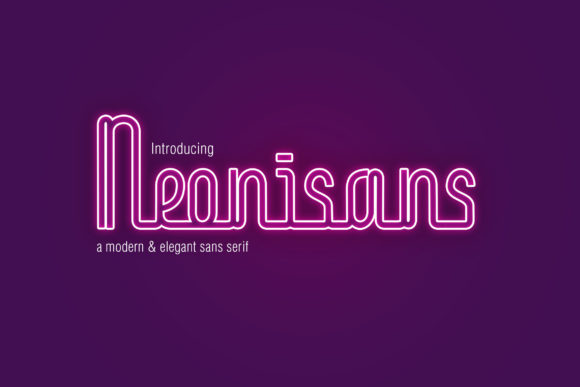
Prepare to be mesmerized by Neonisans, a display font that radiates a modern, tech-savvy charm. This font is not just a collection of letters; it's an artistic expression that will ignite your creativity and leave a lasting impression on your audience.
With its sharp, geometric lines and captivating curves, Neonisans commands attention like a neon sign in the night sky. It's a font that exudes sophistication and innovation, perfect for display ads that demand attention.
Imagine your designs adorned with the brilliance of Neonisans. Whether you're creating logos, posters, social media graphics, or website headers, this font will elevate your creations to new heights. Its versatility knows no bounds, adapting seamlessly to a wide range of projects.
But Neonisans is more than just a visually stunning font; it's a gateway to a realm of boundless possibilities. Unveil your inner artist and let your imagination run wild as you craft designs that captivate and inspire.
Join the league of creative visionaries who have discovered the transformative power of Neonisans. Experience the thrill of creating designs that speak volumes, captivating your audience with every stroke of this modern masterpiece.